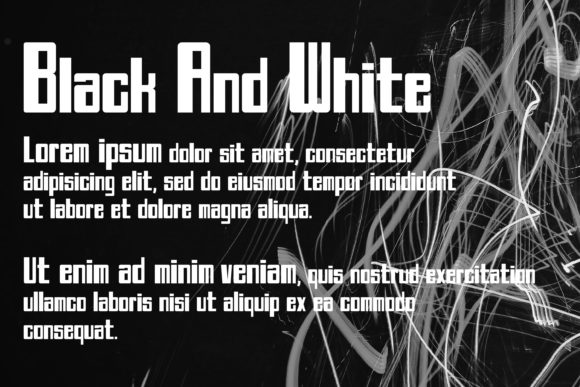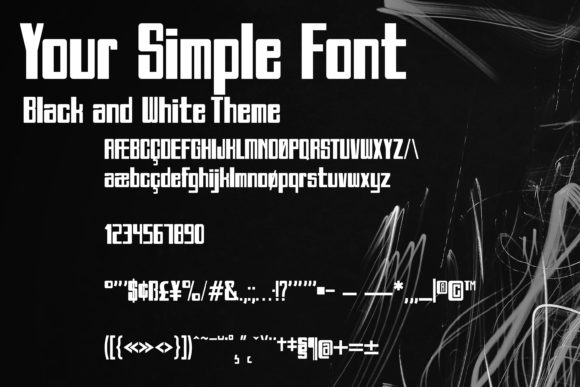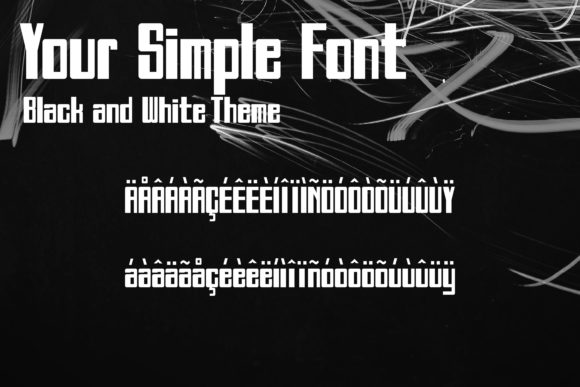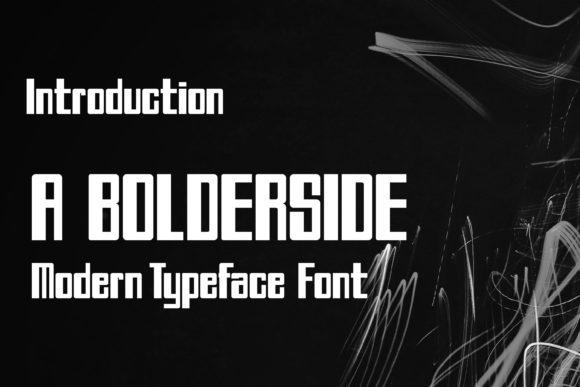
The Designer’s Delight: A Bolderside Font
I’ll never forget the time I was working on a project for a trendy new coffee shop. My client wanted a bold, eye-catching logo that would stand out on their merchandise and website. I spent hours scouring font libraries, but nothing seemed quite right. That was when I stumbled upon A Bolderside, a modern, cool, and squared lettered display font that instantly caught my attention.
With its unique touch and edgy vibe, A Bolderside was the perfect solution to my design dilemma. In this article, I’ll share my experience with this fantastic font, including what I love about it, some practical tips on how to use it, and a few similar fonts you might enjoy.
An Honest Review of A Bolderside
- ✅ Unique and eye-catching design: A Bolderside’s squared letters and modern aesthetic make it perfect for grabbing attention.
- ✅ Versatile: This font is ideal for a wide range of design projects, from web designs and business cards to posters and merchandise.
- ✅ Easy to read: Despite its bold and edgy design, A Bolderside is surprisingly easy to read, even at smaller sizes.
- ⚠️ Limited use in body text: A Bolderside is best used as a display font, and may not be suitable for longer blocks of body text.
- ⚠️ Some glyphs may require manual adjustment: Depending on the design, some glyphs may require manual adjustment to ensure proper spacing and alignment.
A Practical Guide to Using A Bolderside
If you love A Bolderside, you might also enjoy these similar fonts:
- Mont: A sleek and modern sans-serif font with a similar feel to A Bolderside. Use Mont for body text or as a substitute for A Bolderside in smaller sizes.
- Inter: A contemporary sans-serif font with a strong, geometric aesthetic. Inter is perfect for designs that require a bold, futuristic look.
- Akzidenz-Grotesk: A classic sans-serif font with a similar industrial feel to A Bolderside. Use Akzidenz-Grotesk for a more vintage or retro look.
- Arial Black: A bold, sans-serif font with a similar squared aesthetic to A Bolderside. Arial Black is a great substitute for A Bolderside when a more traditional font is needed.
The Designer Behind A Bolderside
While the true story behind A Bolderside’s creation is unknown, it’s easy to imagine a designer sitting at their desk, experimenting with bold, geometric shapes and modern typography. Perhaps they were inspired by the urban landscape, with its sleek skyscrapers and edgy street art. Whatever the inspiration, A Bolderside is a testament to the power of creative vision and attention to detail.
Q: What is A Bolderside font best used for?
A Bolderside font is best used for display purposes, such as titles, headings, and logos. Its unique design and bold aesthetic make it perfect for grabbing attention.
Q: Can I use A Bolderside for body text?
While A Bolderside can be used for body text, it’s not recommended. The font’s bold design and squared letters may make it difficult to read in longer blocks of text.